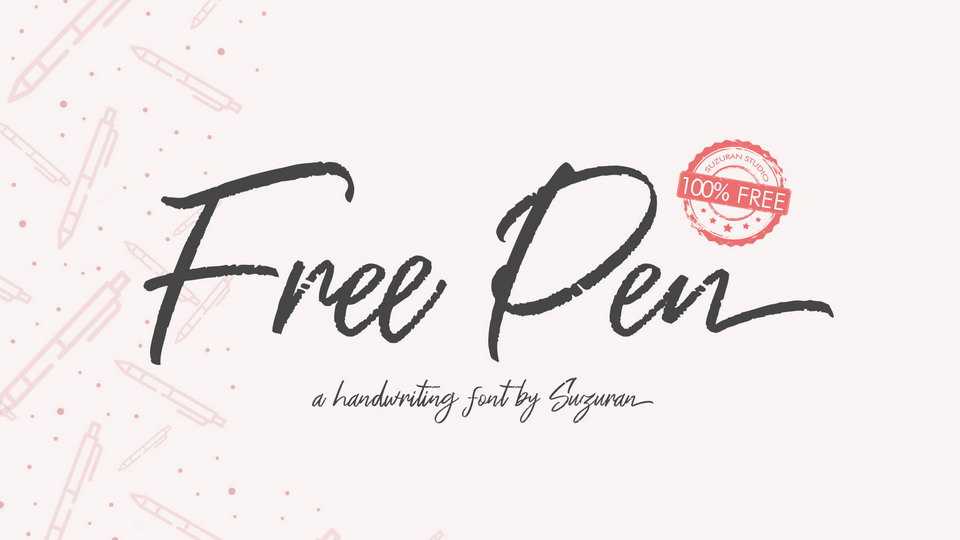
Download Free Pen font – a trendy signature style script with natural handwriting look. It can be used for logo, watermark, cards, social media, quotes, t-shirts, magazines and much more.
Designer: Suzuran Type